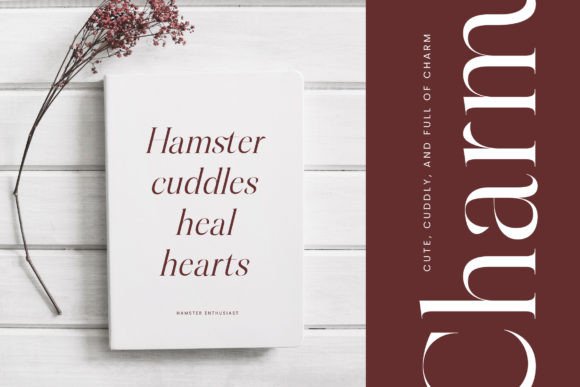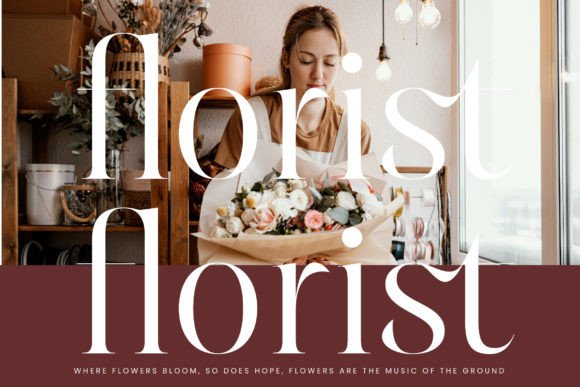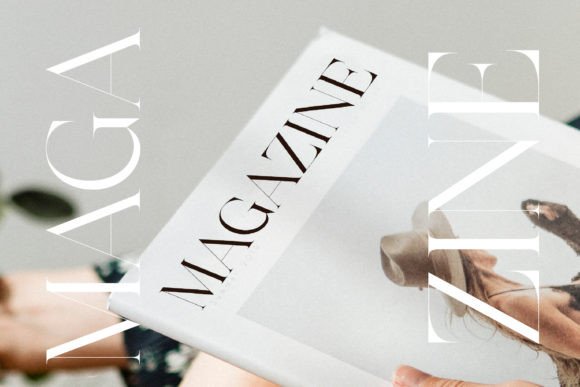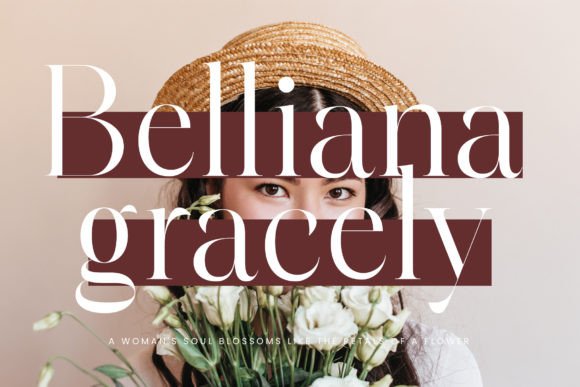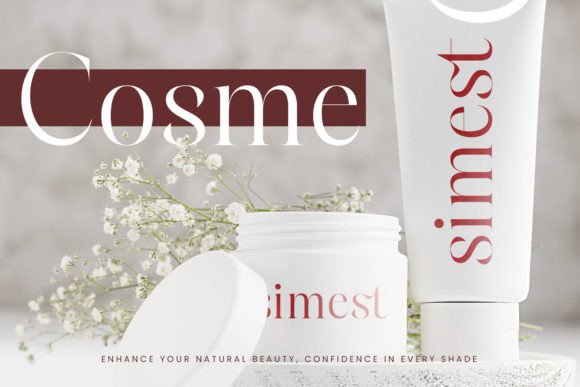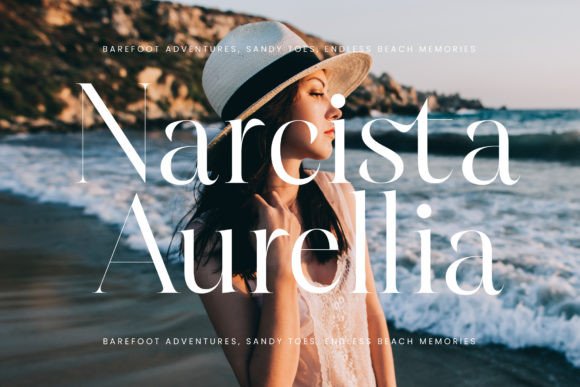
Introducing Hamster Font: Elevate Your Designs with Luxury Serif Elegance
Are you on the hunt for a font that exudes luxury, sophistication, and modernity? Look no further than Hamster Font, a stunning serif font from Letterena that’s perfect for designers and crafters seeking to elevate their projects. In this article, we’ll dive into the world of Hamster Font, exploring its features, uses, and benefits, as well as provide tips on how to make the most of this versatile typeface.
What is Hamster Font?
Hamster Font is a modern serif font designed by Letterena, a renowned font foundry. This luxury serif font is crafted to add a touch of elegance and refinement to any project, from logos and branding to packaging, posters, and more. With its clean lines, precise curves, and classic serif details, Hamster Font is the perfect choice for designers seeking to create high-end visuals.
Key Features of Hamster Font
- Modern Serif Design: Hamster Font boasts a sleek, contemporary serif design that’s perfect for luxury projects.
- Versatile: This font is suitable for a wide range of applications, from logos and branding to packaging, posters, and more.
- Elegant and Refined: Hamster Font’s classic serif details and precise curves evoke a sense of sophistication and luxury.
- Easy to Read: The font’s clear and legible design ensures that your message is conveyed with clarity and impact.
Uses for Hamster Font
Hamster Font is an incredibly versatile typeface that can be used in a variety of projects, including:
- Logos and Branding: Create a lasting impression with a luxury logo that showcases your brand’s personality.
- Homeware Designs: Add a touch of elegance to your homeware designs, from stationery to textiles.
- Product Packaging: Elevate your product packaging with a sophisticated font that reflects your brand’s values.
- Mugs, Quotes, and Posters: Create stunning print-on-demand products that showcase your creativity.
- Shopping Bags, T-Shirts, and More: Extend your brand’s reach with stylish and memorable merchandise.
Benefits of Using Hamster Font
By incorporating Hamster Font into your designs, you’ll enjoy a range of benefits, including:
- Instant Luxury Appeal: Hamster Font’s sophisticated design instantly elevates your projects, giving them a high-end feel.
- Improved Readability: The font’s clear and legible design ensures that your message is conveyed with clarity and impact.
- Versatility: Hamster Font can be used in a wide range of projects, from digital to print.
- Unique and Memorable: Stand out from the crowd with a font that’s both stylish and distinctive.
Tips for Using Hamster Font
To get the most out of Hamster Font, follow these expert tips:
- Pair with Sans-Serif Fonts: Combine Hamster Font with sans-serif fonts for a striking contrast.
- Experiment with Colors: Try pairing Hamster Font with bold colors to create a lasting impression.
- Use for Headings and Titles: Hamster Font is perfect for headings and titles, adding a touch of luxury to your designs.
Hamster Font is a game-changing serif font that’s perfect for designers and crafters seeking to elevate their projects. With its modern design, versatility, and luxury appeal, this font is sure to become a staple in your design arsenal. Whether you’re working on logos, branding, packaging, or more, Hamster Font is the perfect choice for adding a touch of sophistication and elegance to your designs.